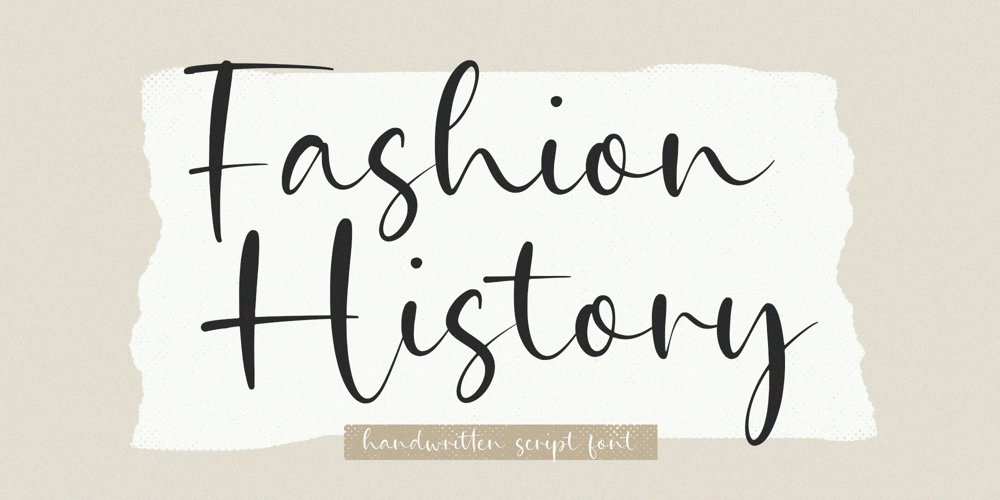
Fashion History Font Family was designed by Wara Sigit Tri Pamungkas and published by Timurtype. Fashion History contains 1 styles and family package options. Introducing by Timur typeProudly Present, Fashion History A Handwritten Script FontFashion History is perfect for product packaging, branding project, megazine, social media, wedding, or just used to express words above the background.This Bread Forest font includes:-Full Set of standard alphabet and punctuation & symbol-Extra set Alternate ending lowercase-multilingual support.Embelish your designs with our original fonts.Enjoy the font,Thank you!